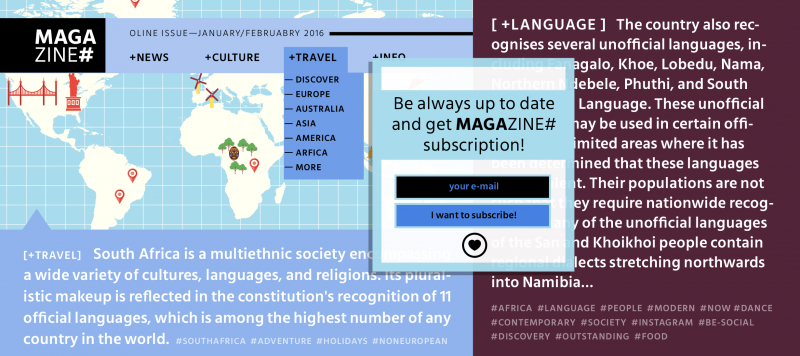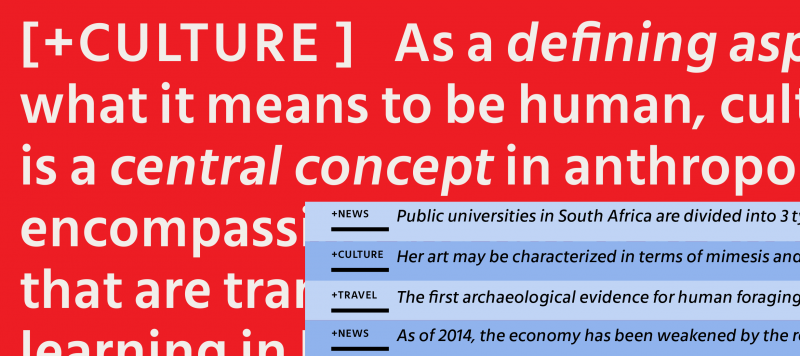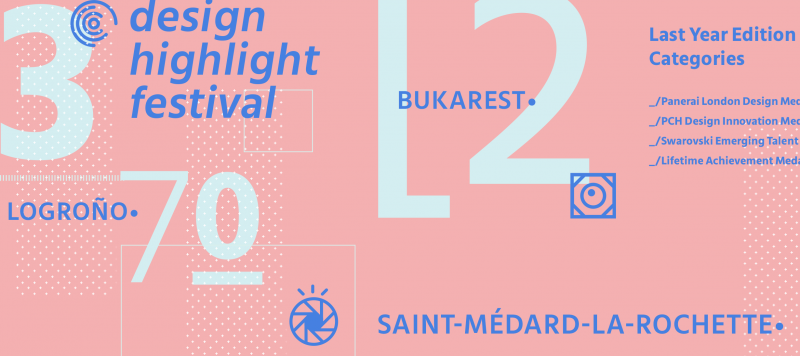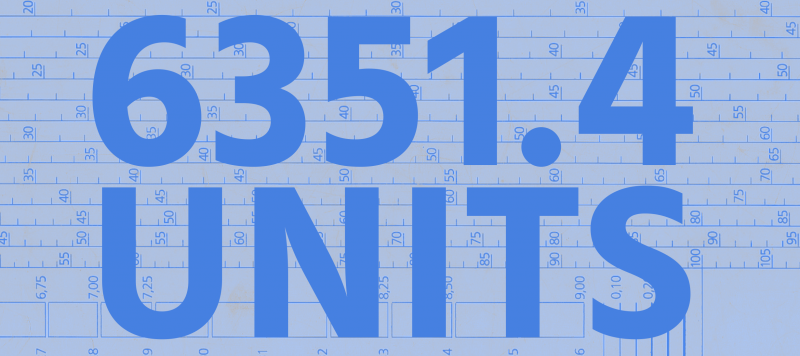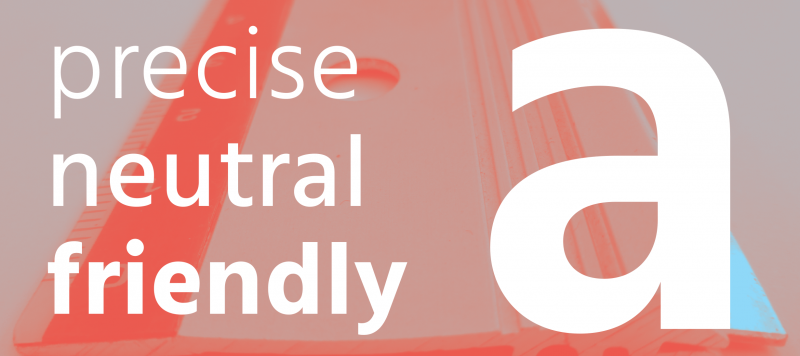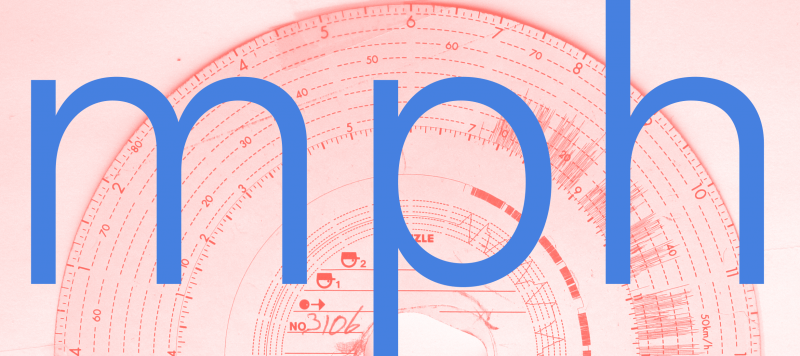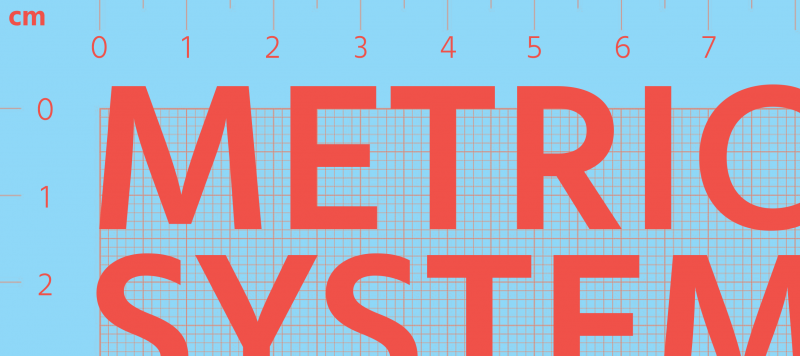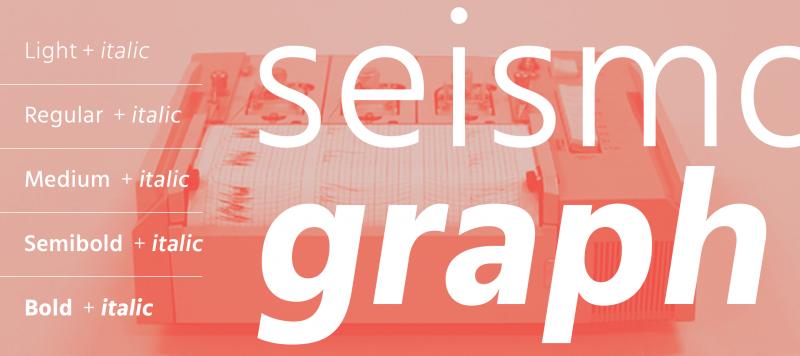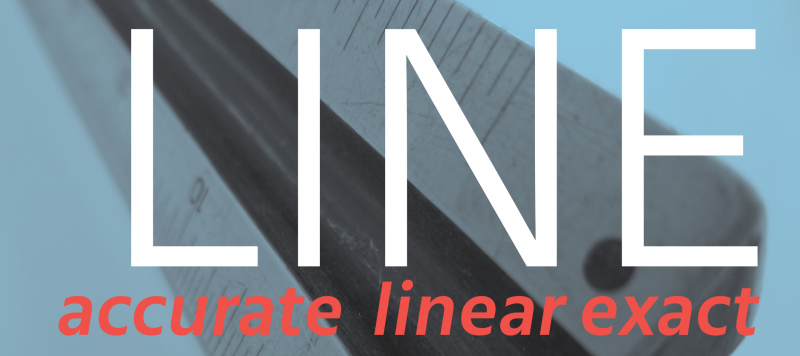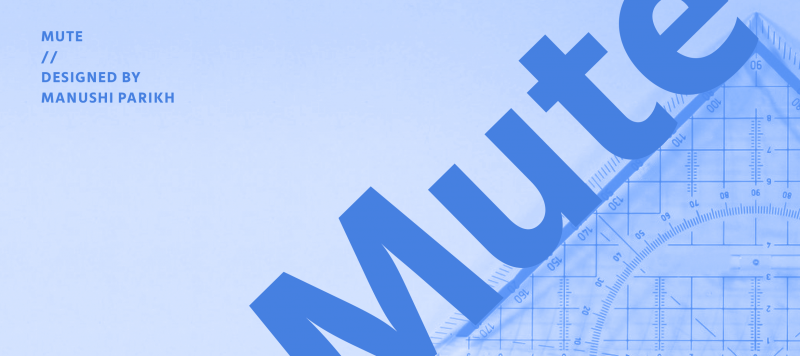
Mute is a humanist sans typeface family developed for User interface (UI) designs. Its letters have low stroke-contrast and terminals that end on the horizontal or the vertical, making its apertures open and the counter forms between its characters clear and compact. Five legible variants make up the total offering, each including 386 glyphs.
Family Name Mute
Designer(s) Manushi Parikh, Marko Hrastovec
Classification Sans